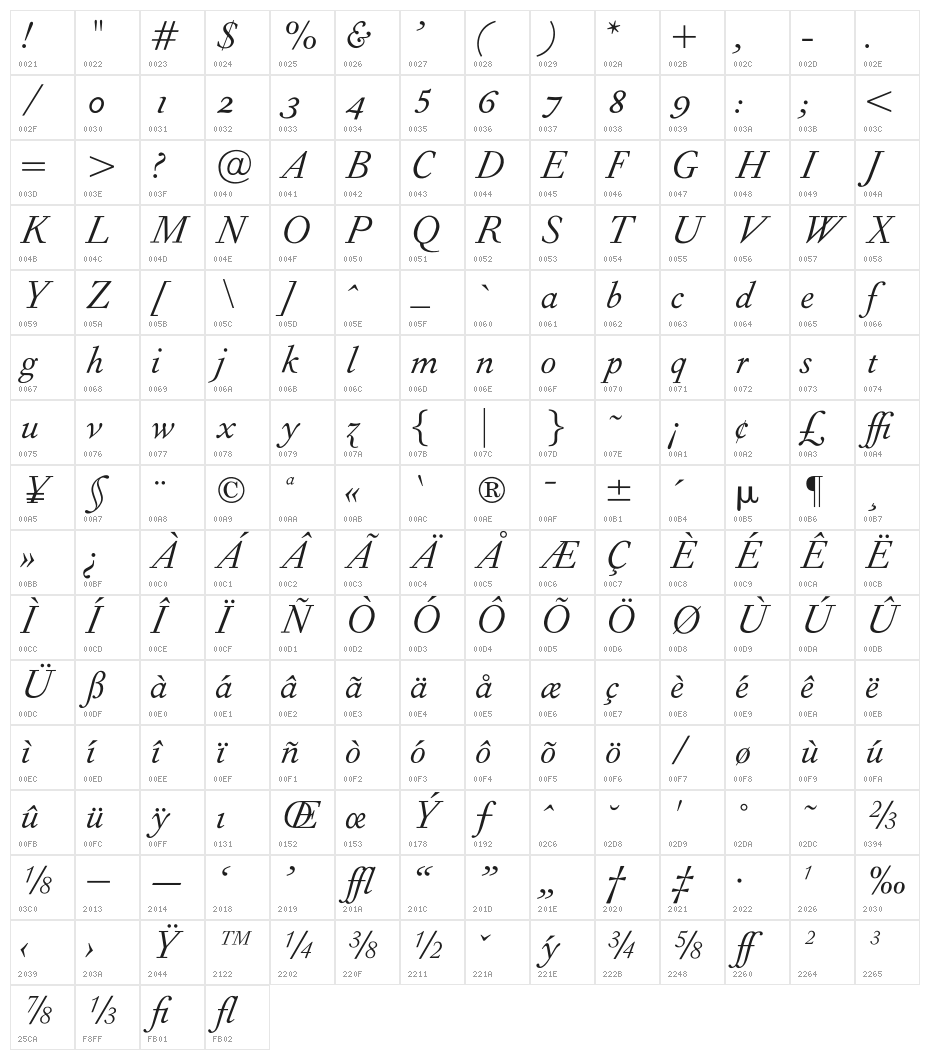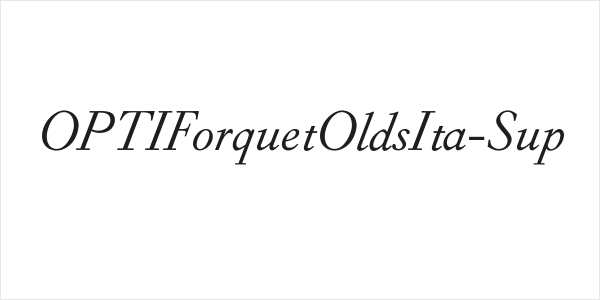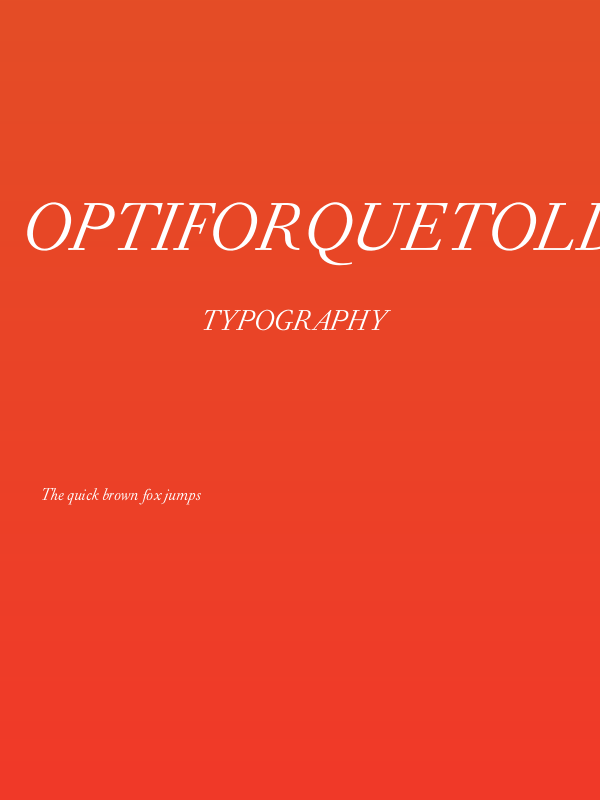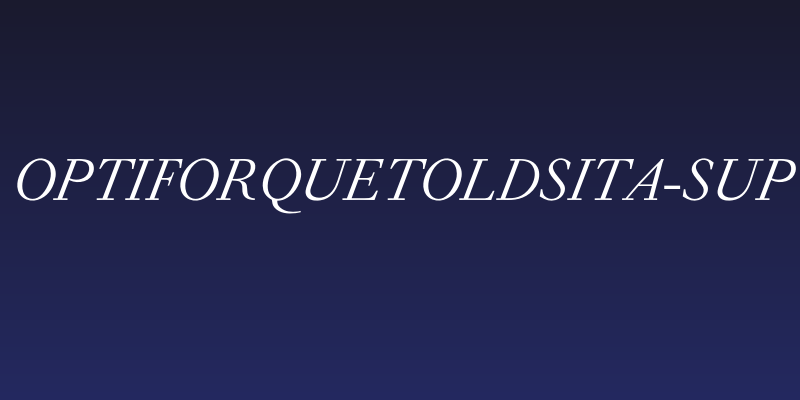
OPTIForquetOldsIta-Sup Font
OPTIForquetOldsIta-Sup Description
This elegant typeface features a classic italic style with a refined and sophisticated appearance. The letters are gracefully slanted, giving a sense of movement and fluidity. The strokes are moderately thick, providing a balanced contrast that enhances readability while maintaining a stylish look. The serifs are delicately crafted, adding a touch of tradition and formality. This font is well-suited for projects that require a touch of elegance and class, such as invitations, formal documents, and branding materials. The numerals and special characters complement the alphabet with consistent style and spacing.
| Use Case | Headlines, Invitations, Formal documents |
| Proposed Projects | Ideal for wedding invitations, formal branding, and elegant editorial design. |